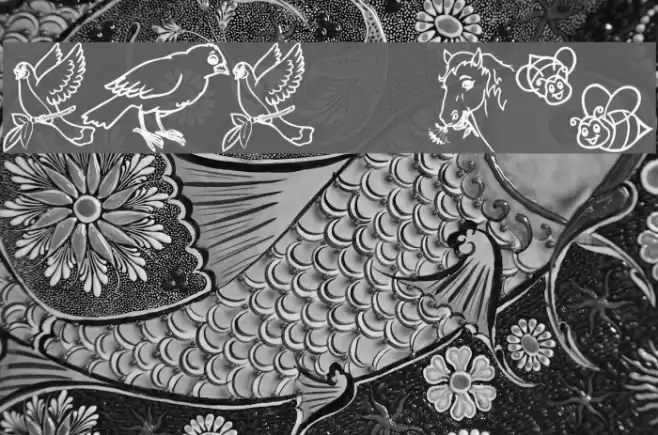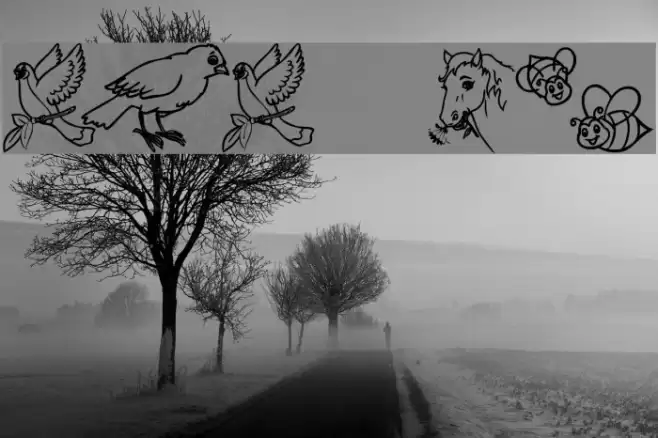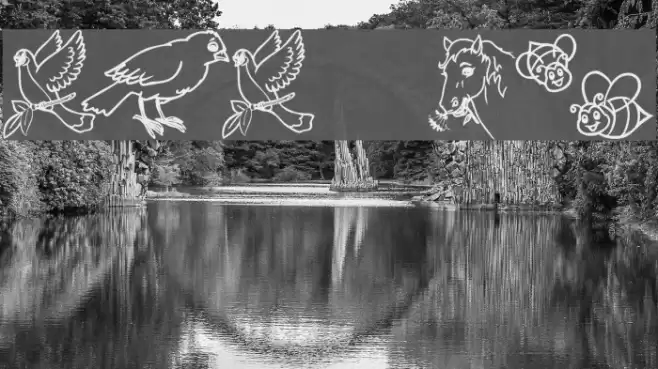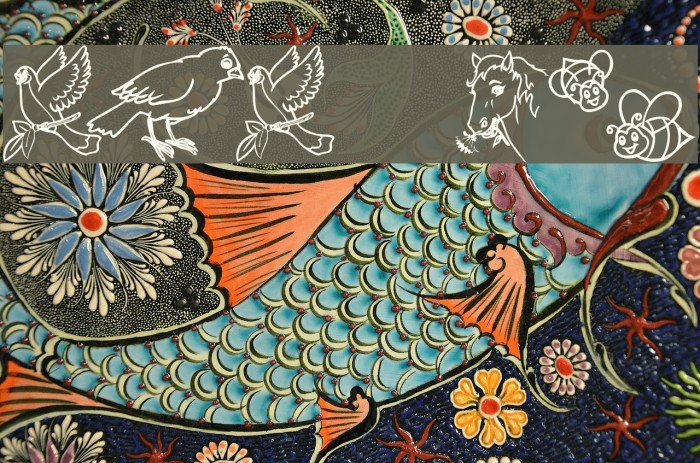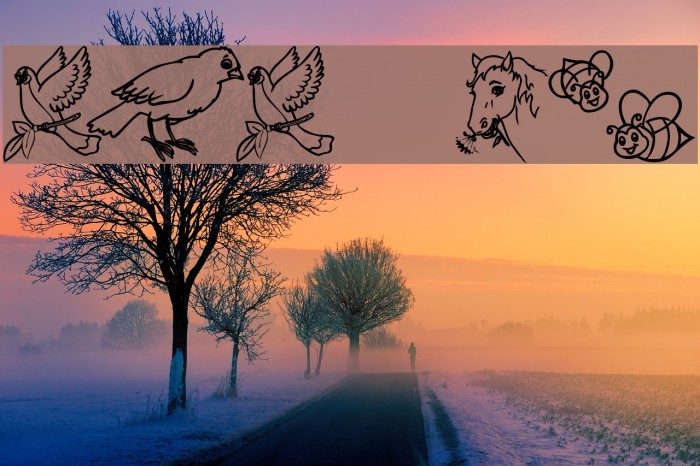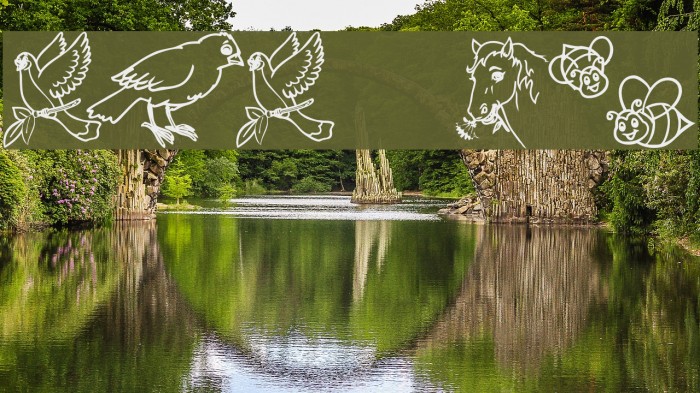
Critters1DC SemiBold Font
Critters1DC SemiBold Description
This is not a valid font. The image contains a series of whimsical and playful illustrations of various critters and animals. Each character is represented by a unique cartoon-style drawing, showcasing a range of creatures from insects to mammals. The designs are detailed and expressive, capturing the essence of each animal with a touch of humor and creativity. These illustrations are more suited for decorative purposes rather than traditional typography.
A collection of playful critter illustrations, not a font from Dingbats fonts.
- Proposed Projects: Ideal for children's books, educational materials, or decorative elements in playful designs.
- Use Case: Decorative illustrations, not suitable for text.